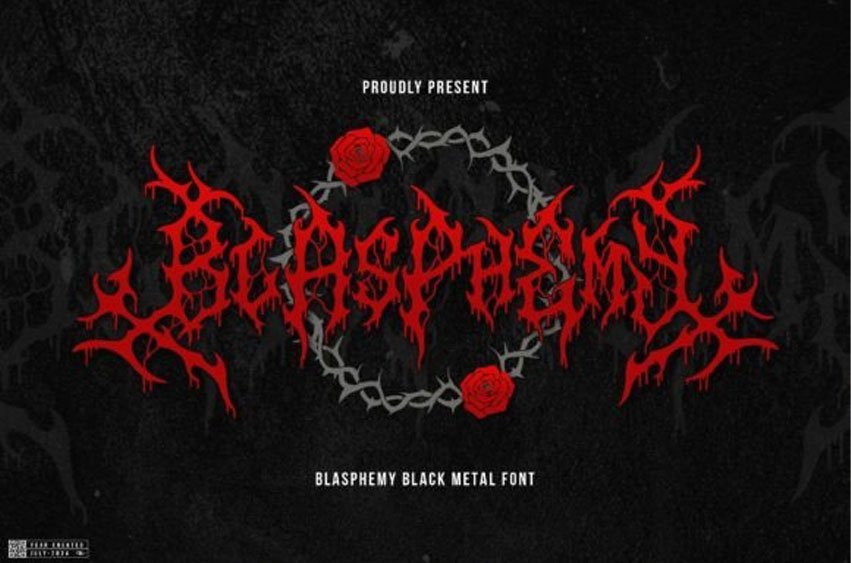
Blasphemy Font is a black metal font with sharp, jagged letters that look dark and intense. It has an aggressive style, perfect for creating a scary or powerful feel in artwork or designs.
The letters are bold and twisted, giving a chaotic and rebellious vibe.